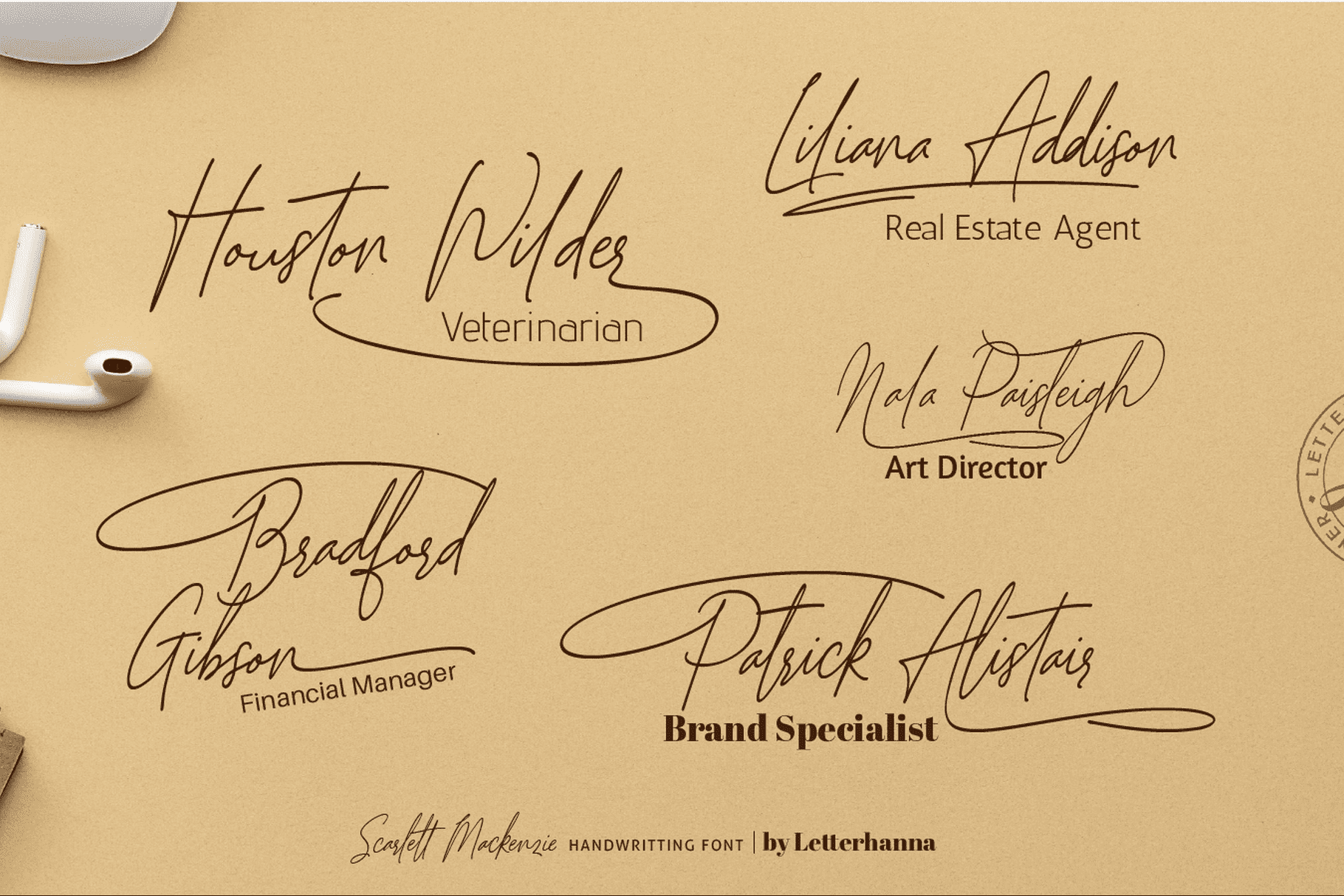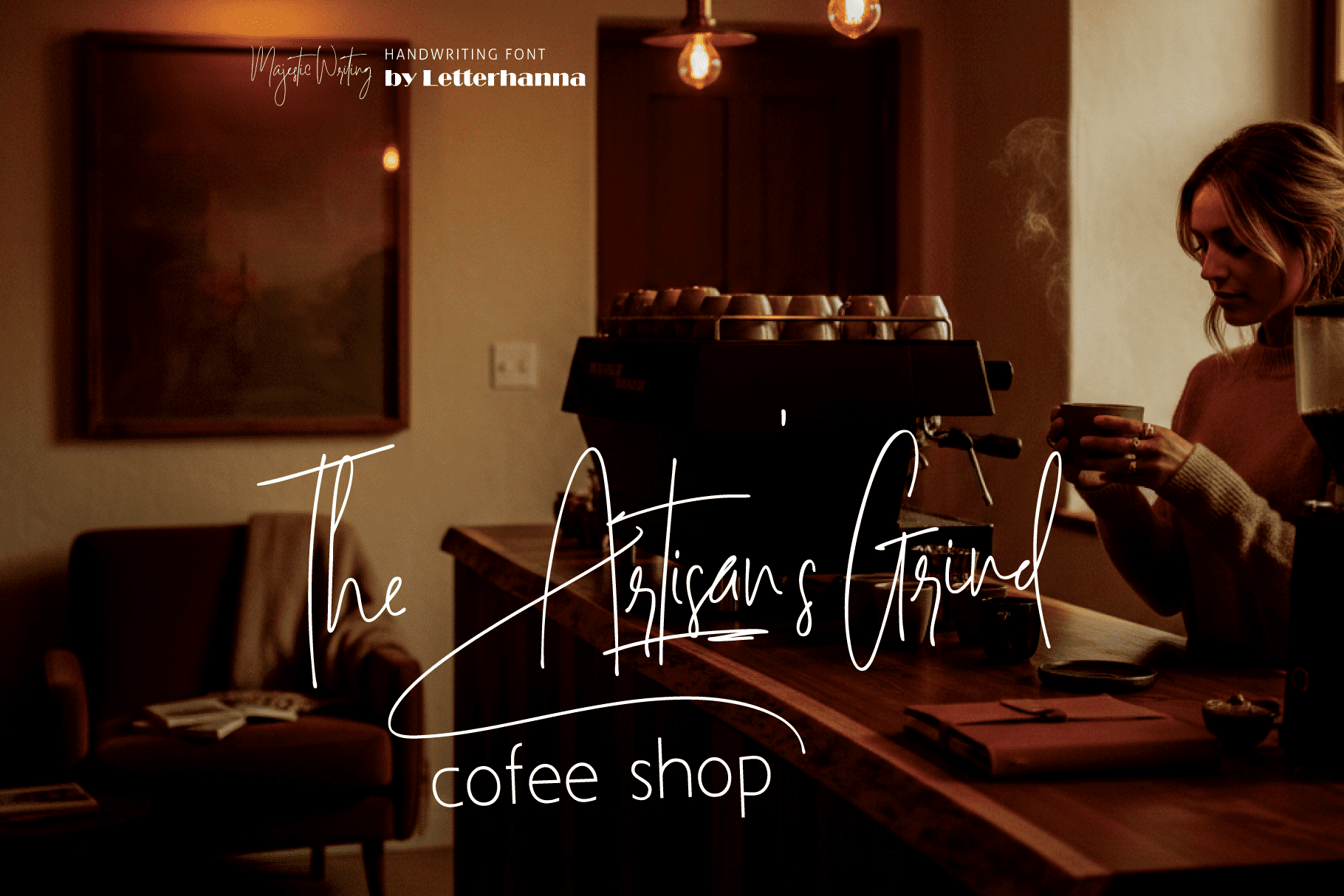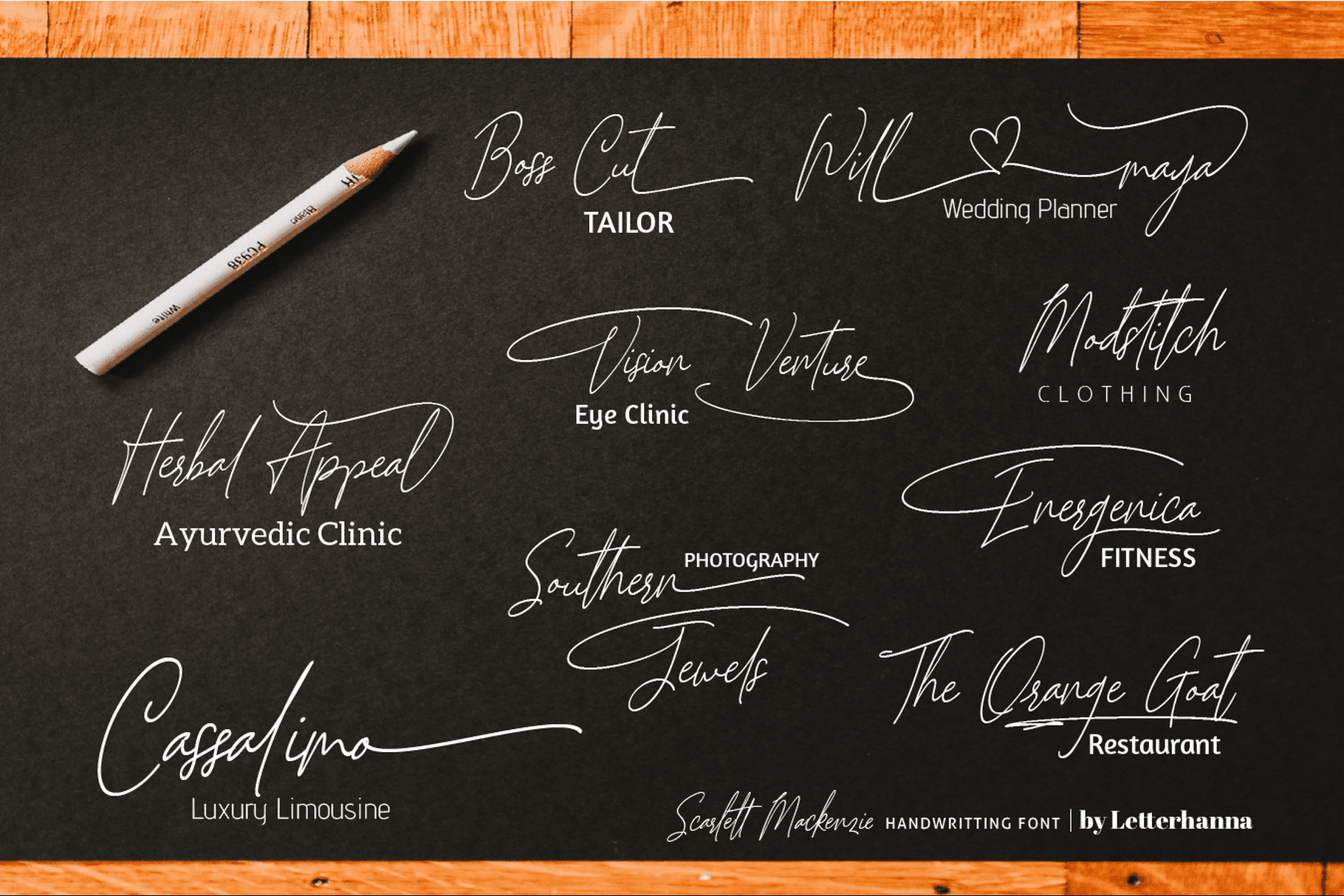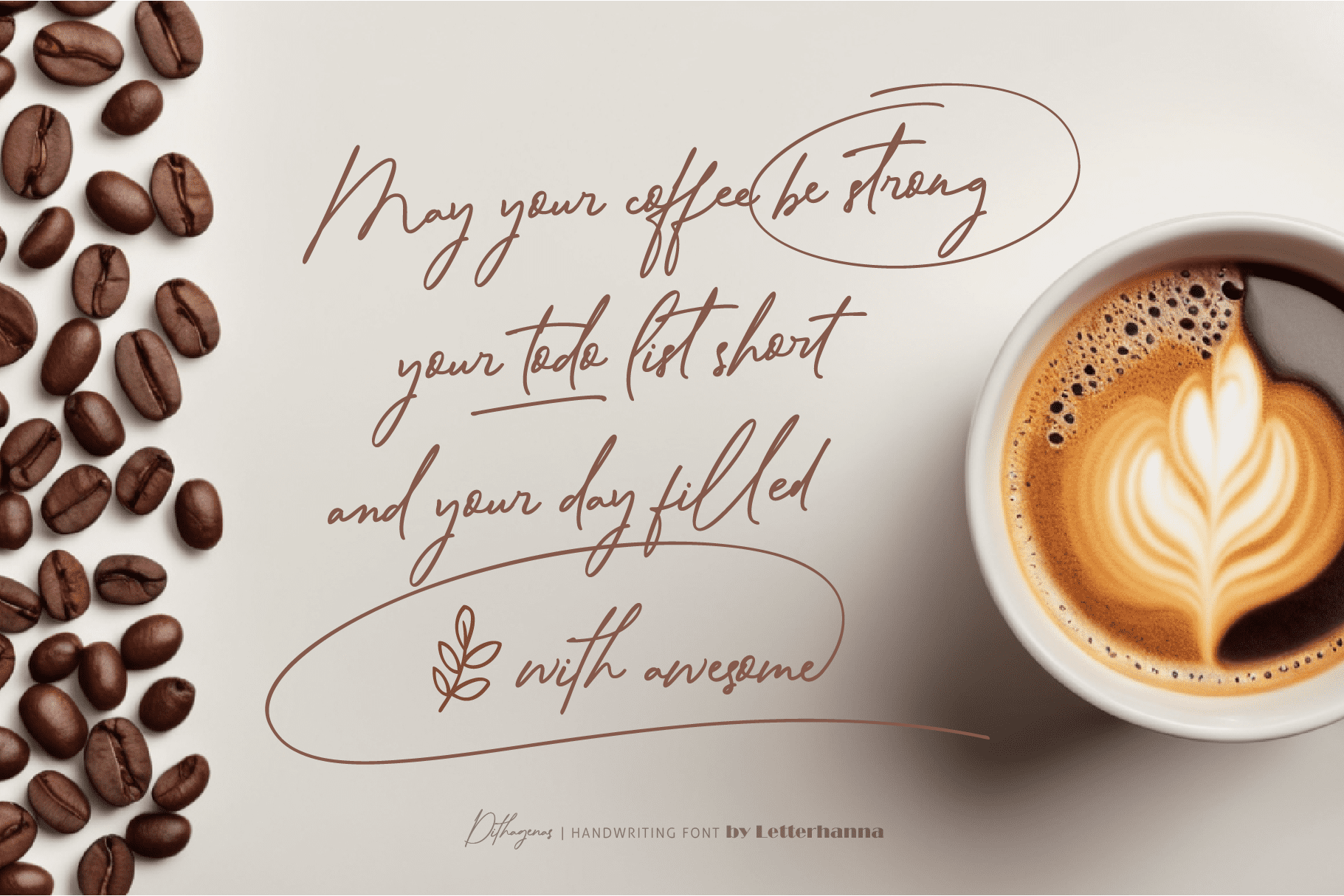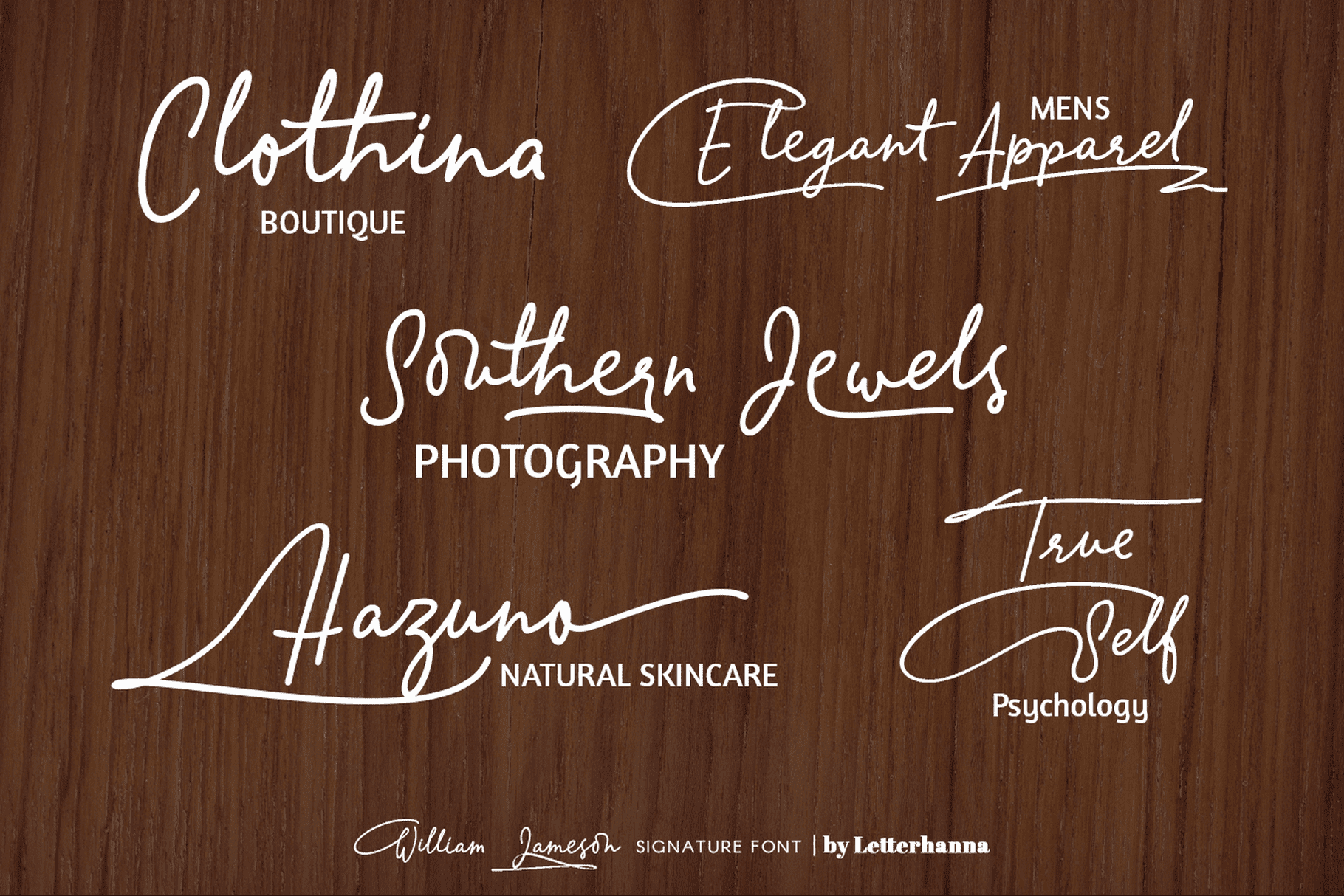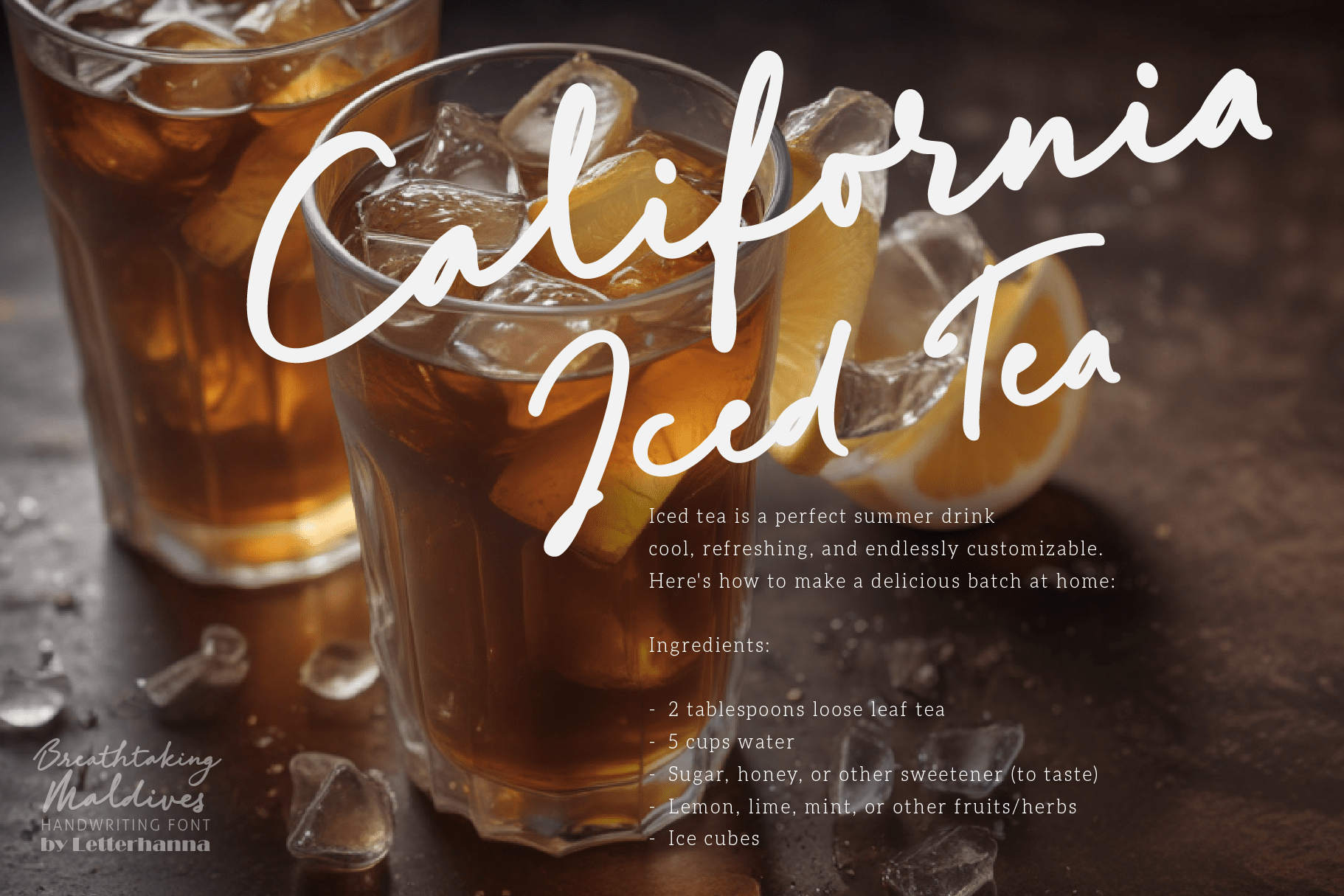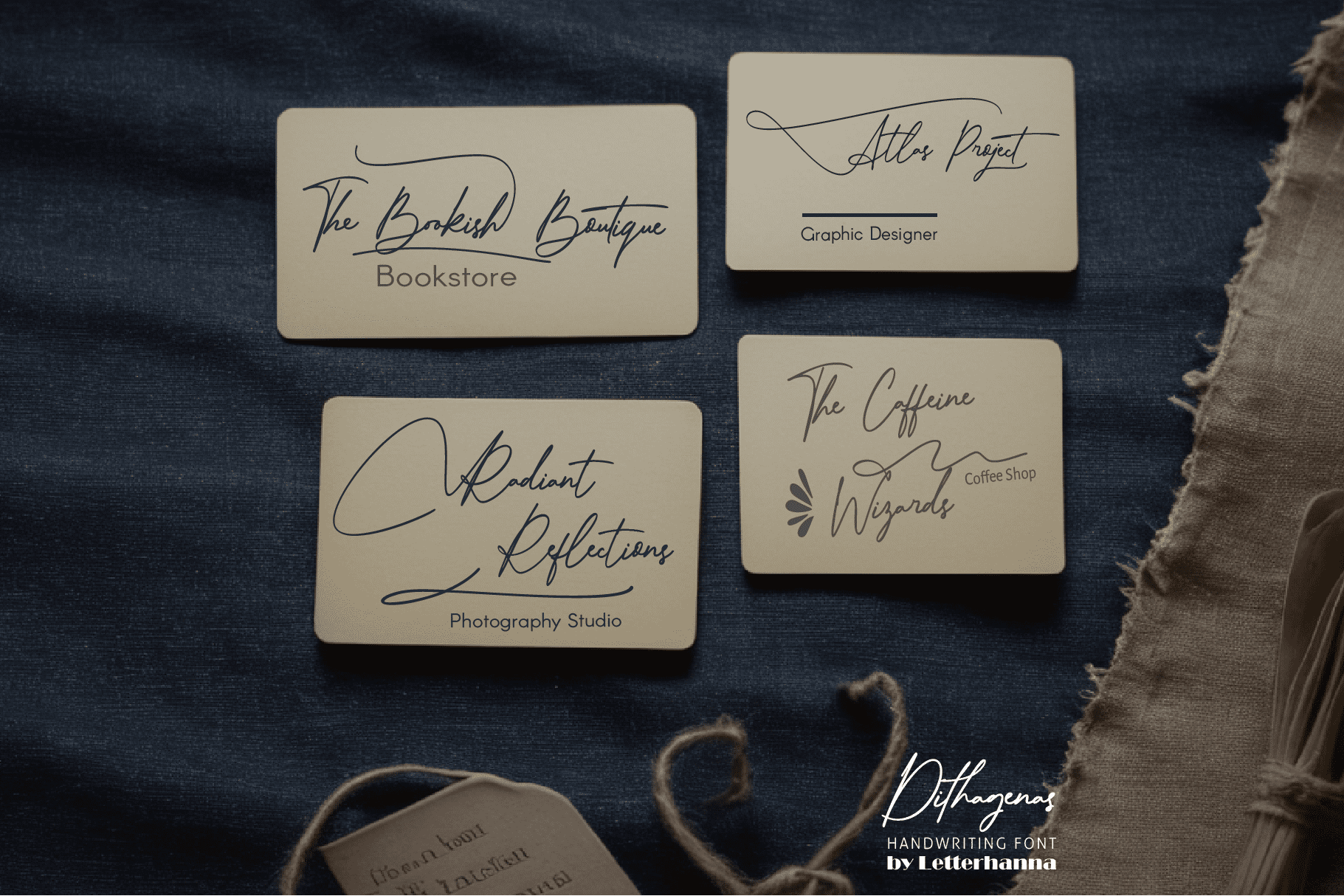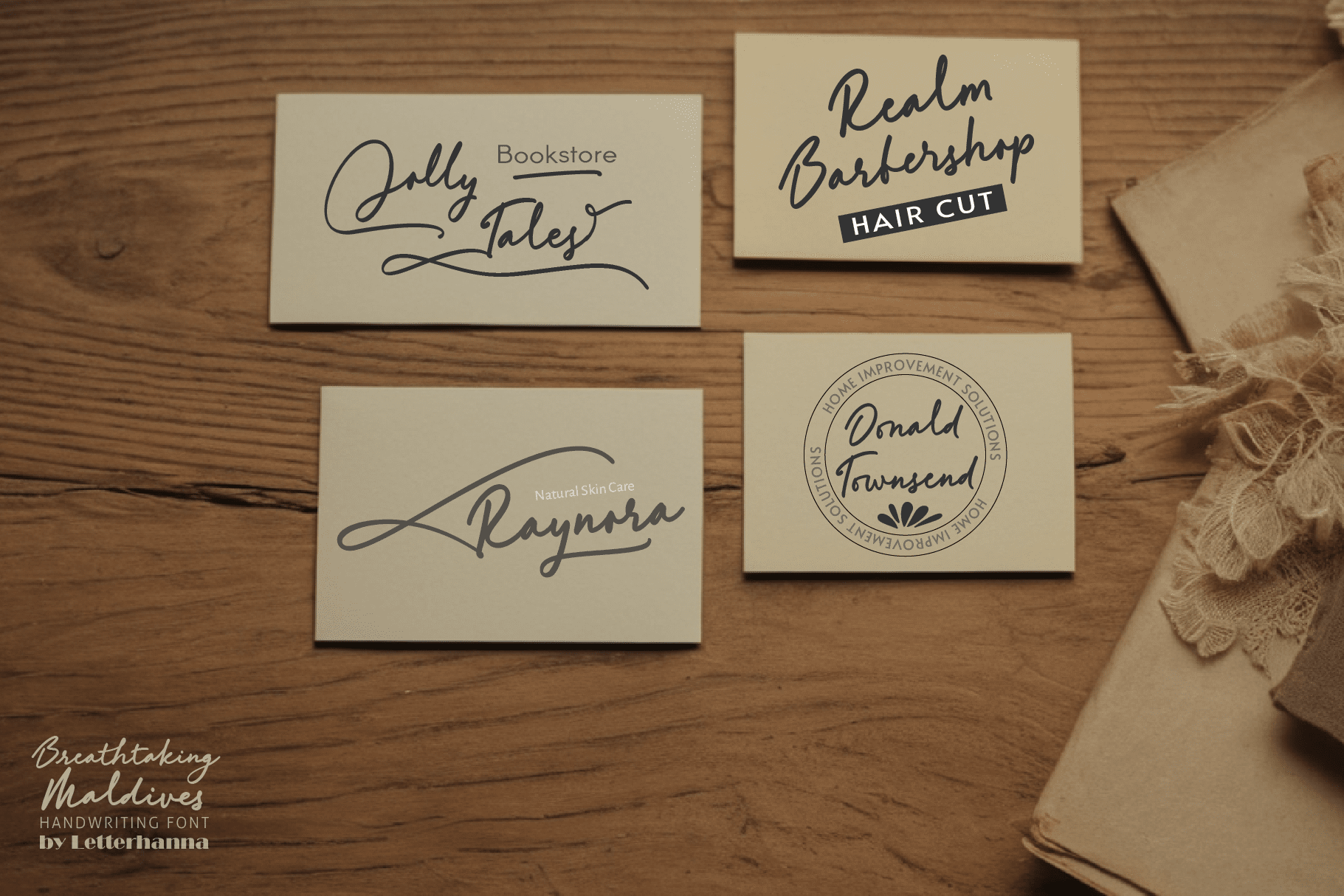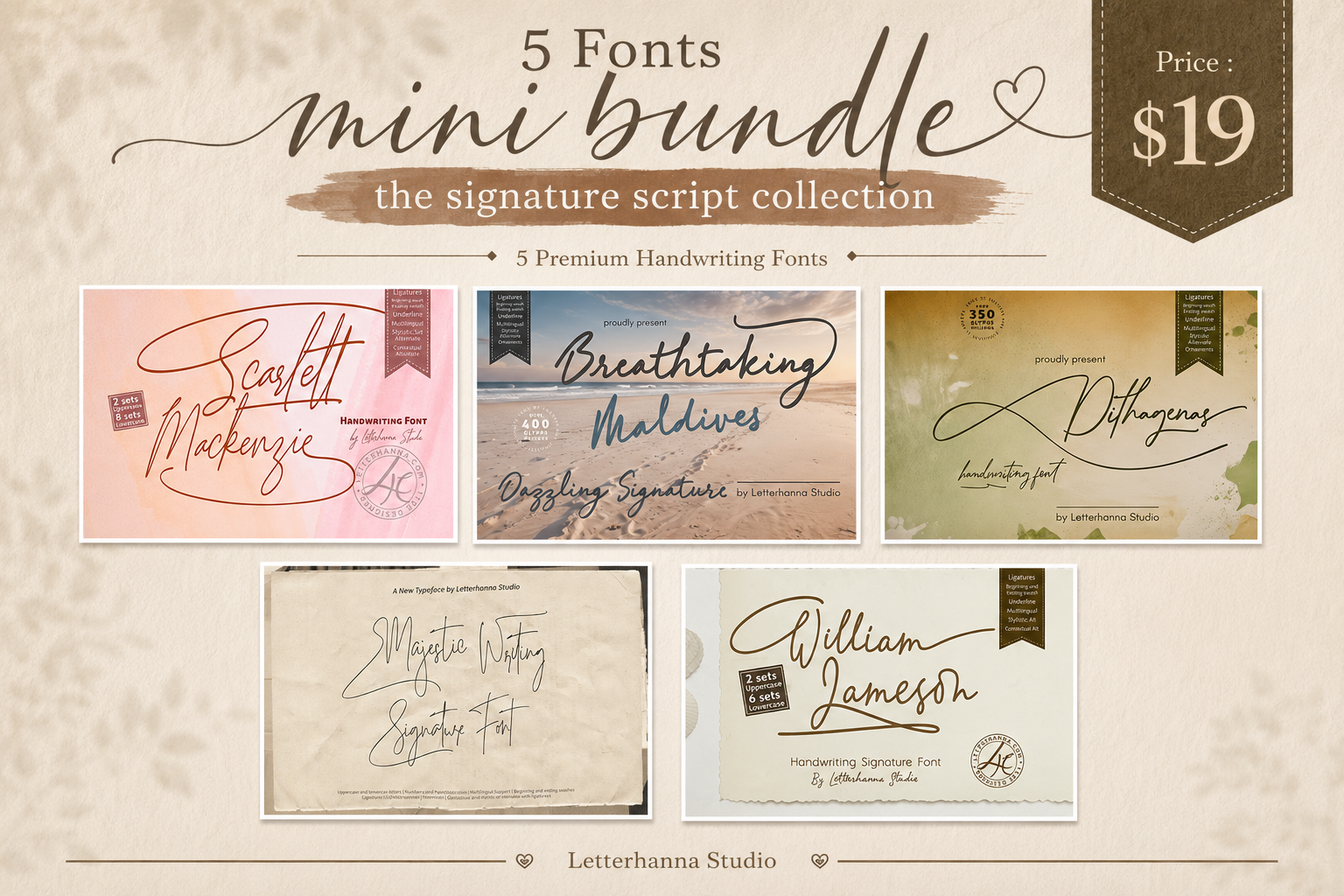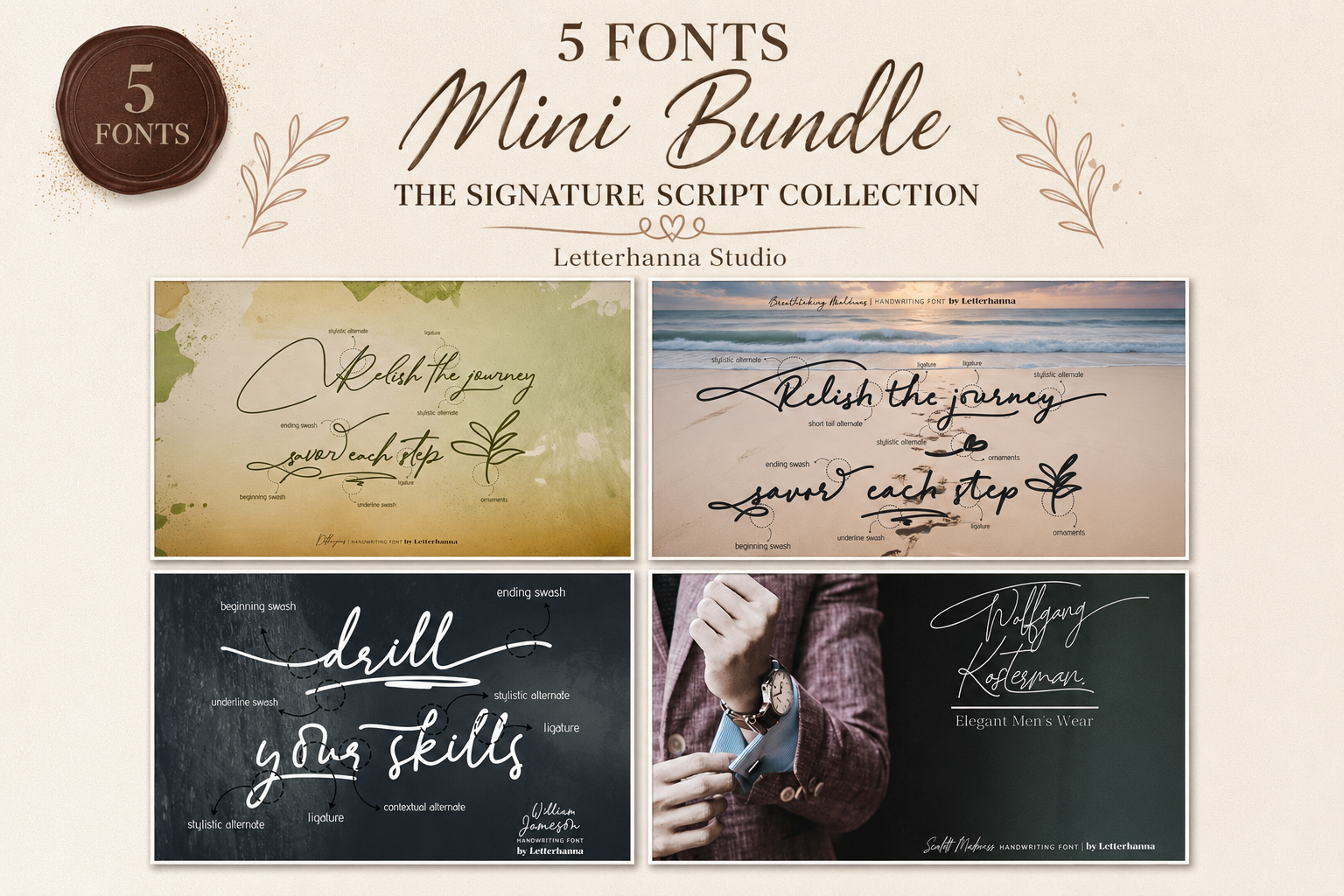
5 Fonts mini bundle the signature script collection
Your signature is more than a name. It’s a statement.
Whether you’re building a personal brand, designing a luxury logo, or crafting something that simply needs to feel expensive — the right font changes everything.
The Signature Script Collection brings together five of Letterhanna Studio’s most refined handwriting script fonts in one powerful bundle, curated specifically for designers, creators, and entrepreneurs who demand elegance in every detail.
Here’s what’s inside:
🖊️ William Jameson — A monoline signature font with fluid OpenType connections and 3 tail variations. Timeless, well-rounded, and effortlessly versatile.
🖊️ Scarlett Mackenzie — Sophisticated signature-style script with 7 sets of lowercase alternates and 35+ natural-looking OpenType ligatures. As close to real handwriting as a font can get.
🖊️ Dithagenas — Graceful loops, natural variation, and a captivating harmony between refinement and ease. Built for projects that demand the allure of authentic handwriting.
🖊️ Breathtaking Maldives — Bold, confident strokes that capture modern sophistication. Made for branding and high-end designs that need to command attention.
🖊️ Majestic Writing — A typeface built around emotion over precision. Form speaks first, the mind understands later. Unforgettable in logos and visual identity.
This isn’t just a font bundle. It’s a creative arsenal for anyone who wants their work to carry real weight — and real elegance.